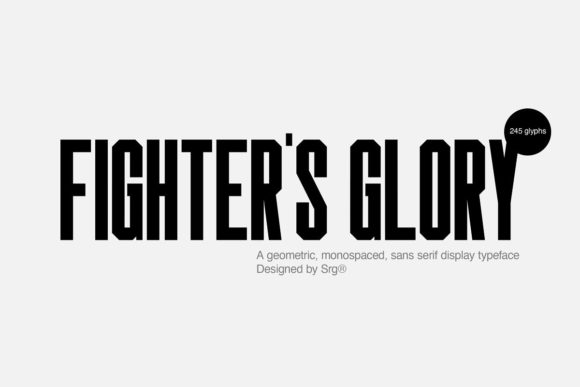
Step into the arena of visual prowess with Fighters Glory Font, a display font that's a knockout. Its bold and thick letters exude strength, confidence, and dynamism, ready to inject your designs with an assertive personality.
With Fighters Glory, your words become weapons of persuasion, cutting through the digital clutter and leaving an impact that resonates. This font is a game-changer for Facebook ads, social media posts, logos, headlines, and any design that demands attention.
Imagine your Facebook ads transformed into a battleground, where Fighters Glory Font leads the charge, capturing the eyes of your audience and driving them to action. Its commanding presence and unwavering determination will make your ads stand out like a champion, leaving a lasting impression that echoes long after the scroll.
Beyond Facebook, Fighters Glory Font conquers new frontiers in design. Its versatility extends to logos, posters, flyers, and branding materials, adding an air of authority and power to your creations. Picture your logo emblazoned with Fighters Glory, a symbol of strength and determination that speaks volumes about your brand.
This font is more than just a collection of letters; it's an arsenal of visual impact, empowering you to create designs that resonate with your audience's core. Embrace the Fighters Glory Font and unleash the warrior within your designs.